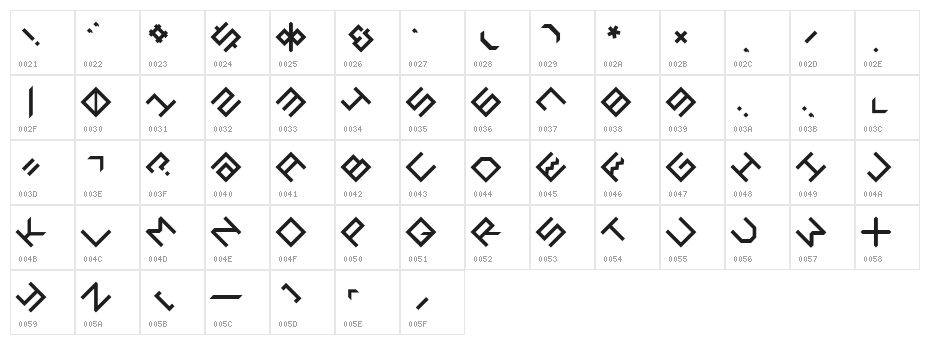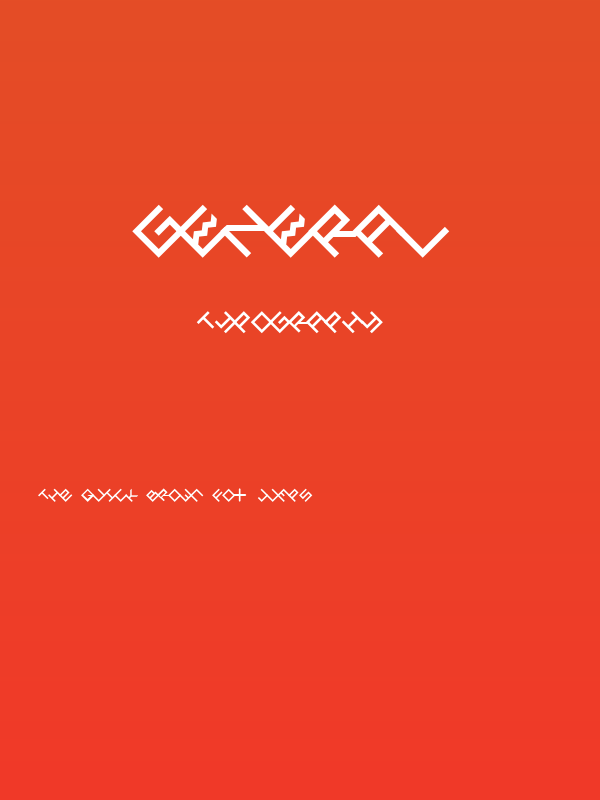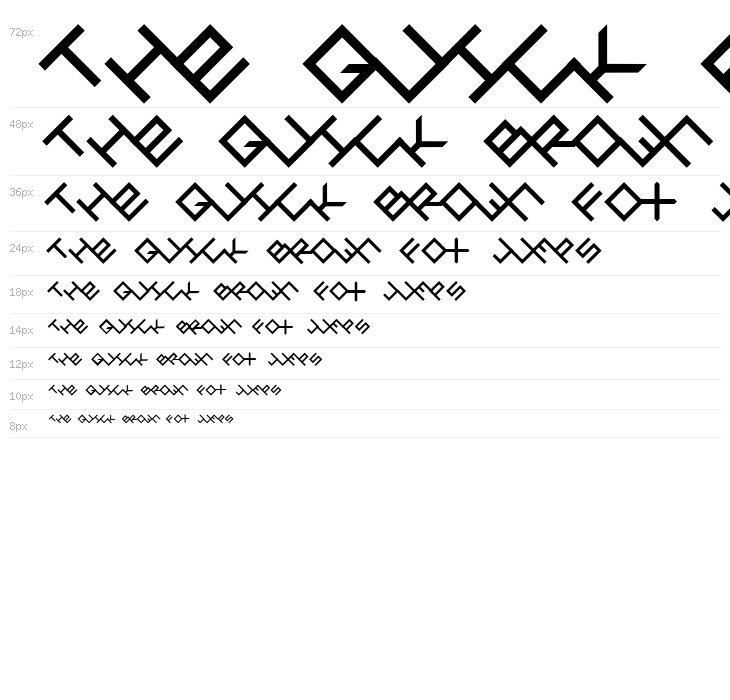
GENERAL Font
GENERAL Description
This font features a highly geometric and abstract design, characterized by its angular and interconnected lines. Each character is constructed with a series of straight lines and sharp angles, creating a maze-like appearance. The font lacks curves entirely, giving it a futuristic and mechanical feel. The uniform thickness of the strokes adds to its bold presence, while the unique structure of each letter makes it stand out as a decorative choice. The special characters follow the same design principles, integrating seamlessly with the alphabetic characters.
Overall StyleFuturistic, Abstract
Use CaseLogos, Posters, Titles
Proposed ProjectsIdeal for sci-fi themed projects, modern art displays, or any creative work requiring a bold, abstract typeface.